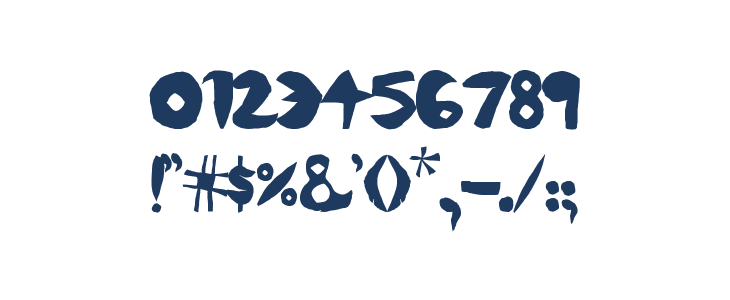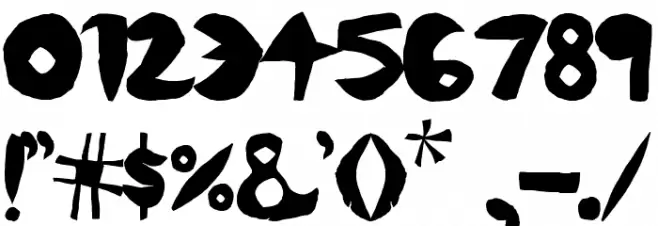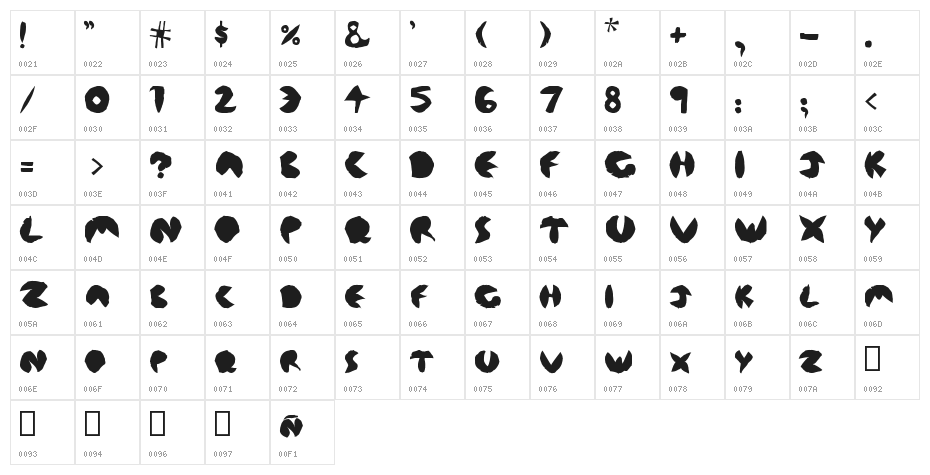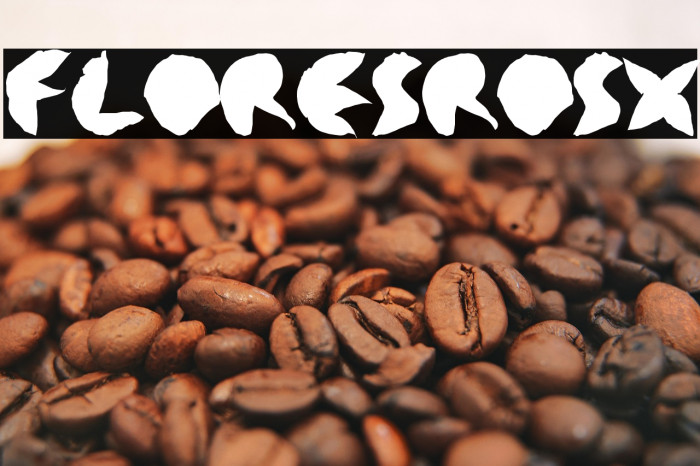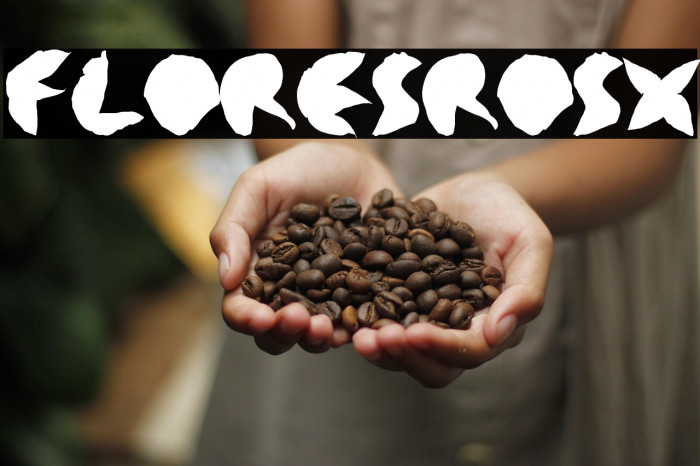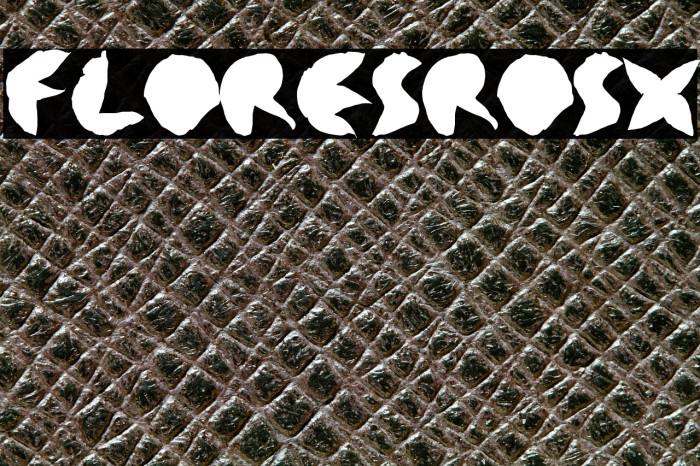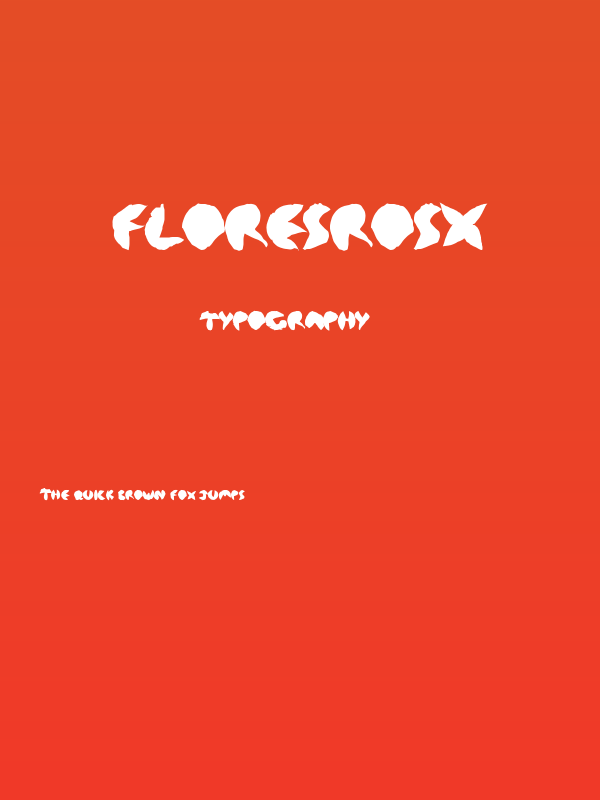
floresrosx Font
floresrosx Description
This font features a bold and dynamic style, characterized by its rough, brush-like strokes that give it a hand-painted appearance. The letters are thick and uneven, creating a sense of movement and energy. The uppercase and lowercase letters maintain a consistent style, with each character exhibiting unique, jagged edges that contribute to its artistic flair. The numbers and special characters follow the same design principles, ensuring a cohesive look across all elements. This font is ideal for projects that require a strong visual impact and a creative, artistic touch.
Overall StyleArtistic, Dynamic
Proposed ProjectsIdeal for posters, album covers, artistic branding, and creative advertising.